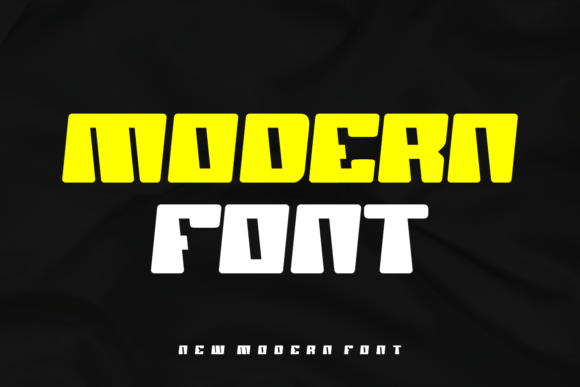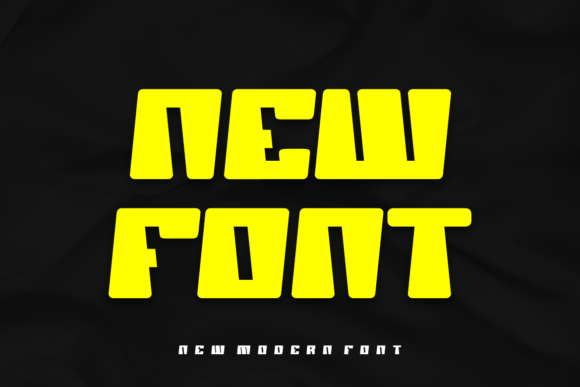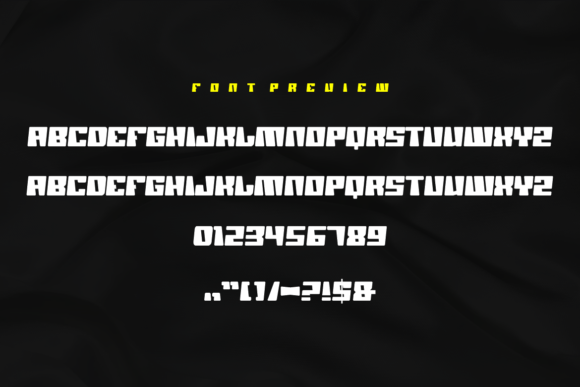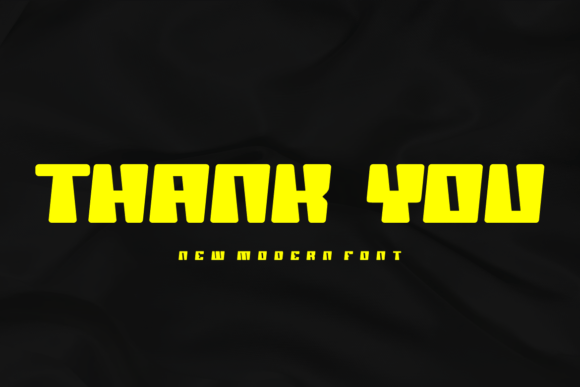
Introduction to Play Beginner Font
You’re in the middle of a creative project, and you’re stuck. You’ve got a great idea, but the right font is evading you. That’s where the Play Beginner Font comes in – a bold and authentic display font that’s perfect for anything from logos to esports branding. Its versatility is what sets it apart from other design resources, making it a valuable addition to any designer’s toolkit.
With its clean lines and modern aesthetic, the Play Beginner Font is an excellent choice for designers looking to elevate their creative projects. Whether you’re working on a high-end branding campaign or a casual poster, this font is sure to impress. Plus, its transparent background makes it easy to use on any design element, from logos to social media graphics. And the best part? It’s available for free download, so you can get started right away.
- High-quality design resource ideal for creative projects, offering a professional touch.
- Designed with a clear and legible aesthetic, making it perfect for use in digital and print media.
Honest Review: Play Beginner Font
As a designer, I’m always on the lookout for high-quality design resources to elevate my creative projects. Recently, I came across the Play Beginner Font, and I was excited to give it a try.
- ✨ What works well: The font is incredibly easy to use, even for beginners. It’s perfect for creating visually appealing text overlays on images or videos.
- ✨ What works well: The font is highly customizable, allowing you to adjust the size, color, and style to suit your design needs.
- ⚠️ Limited font styles: While the font is versatile, it’s limited to a few styles, which may not be suitable for more complex designs.
- ⚠️ No transparent background option: Unfortunately, the font doesn’t support transparent backgrounds, which can be a major drawback for designers who need this feature.
Overall, I’m impressed with the Play Beginner Font, but it’s not without its limitations. If you’re a beginner designer looking for a user-friendly font, this might be a great option. However, if you’re working on a more complex project, you may want to consider a more advanced font.
Tips for Getting the Most Out of Play Beginner Font
Use the Play Beginner Font in conjunction with a transparent background to create a clean and modern design. Experiment with different font sizes and styles to add visual interest to your design project. Consider using the font in combination with other high-quality design resources to create a cohesive and professional look.
The Play Beginner Font is perfect for a variety of creative projects, including social media graphics, blog posts, and marketing materials. It’s also a great choice for designing flyers, brochures, and other print materials. With its modern and playful style, the Play Beginner Font is sure to add a touch of creativity to any design project.